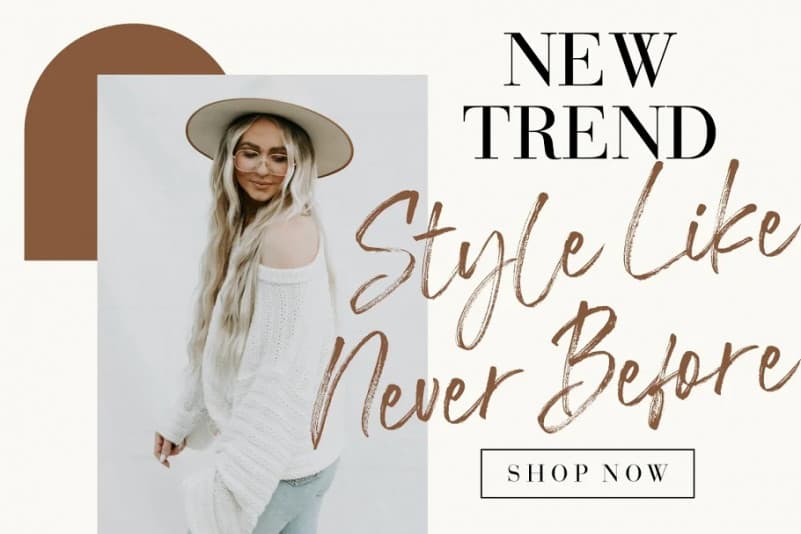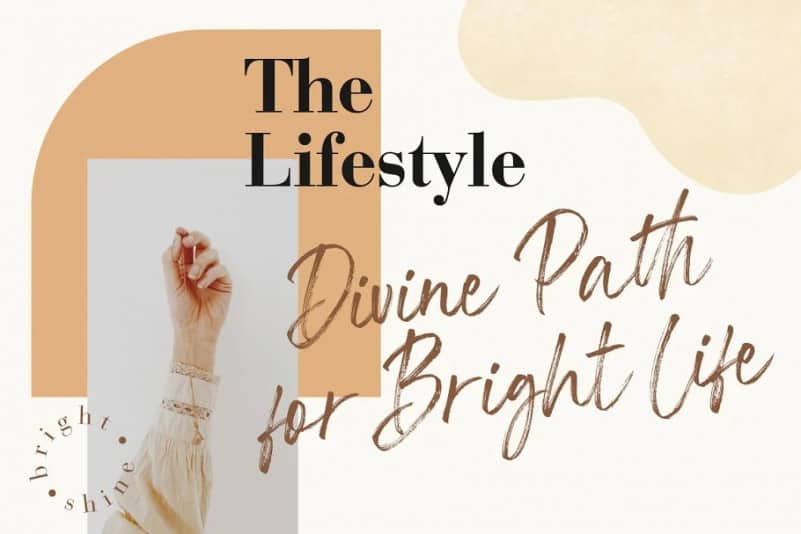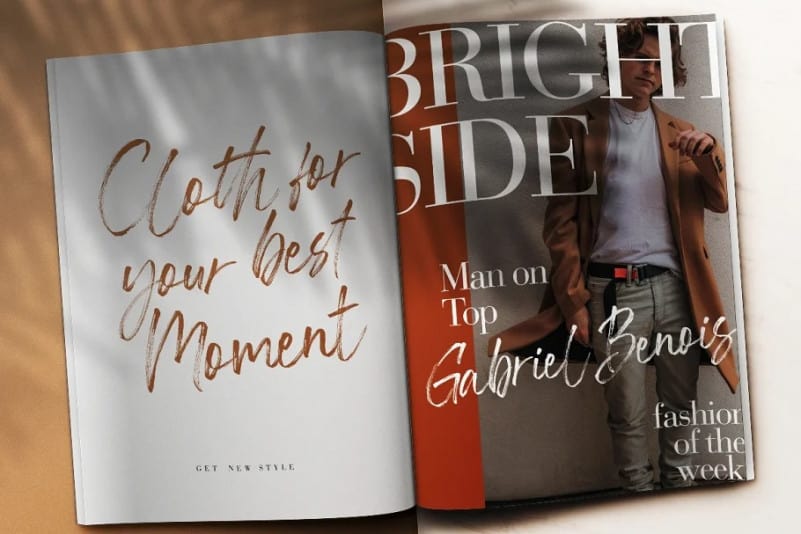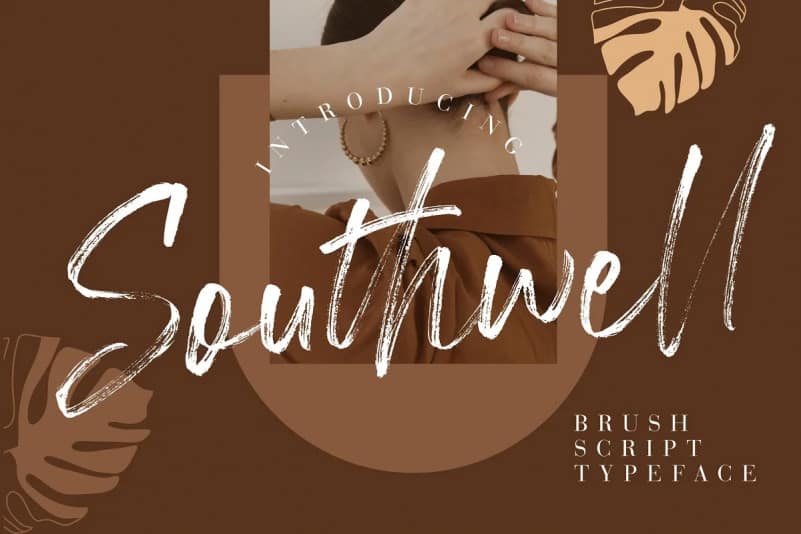
Southwell Brush Font is casual brush script font and combination with Hand Lettering style gives more modern touch and makes the font looks being customized.
Southwell is perfect for branding projects, logo, wedding designs, social media posts, advertisements, product packaging, product designs, label, photography, watermark, invitation, stationery and any projects that need handwriting taste.